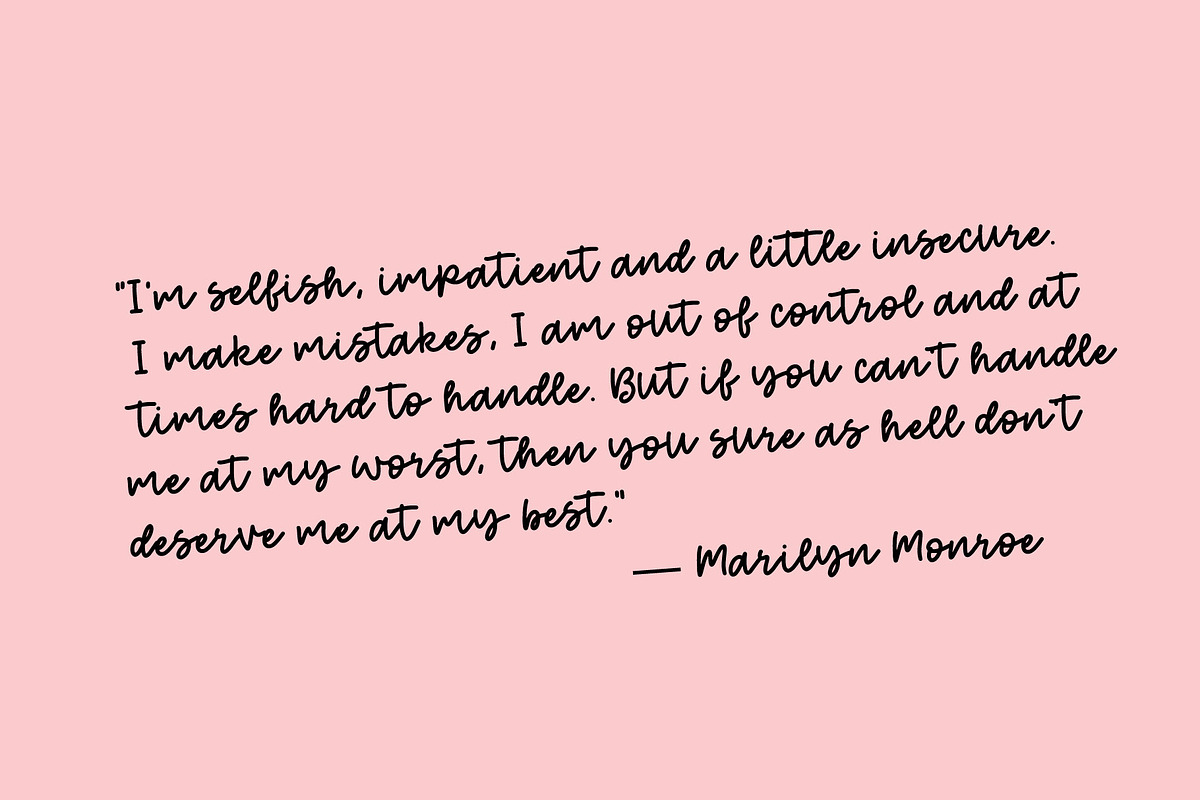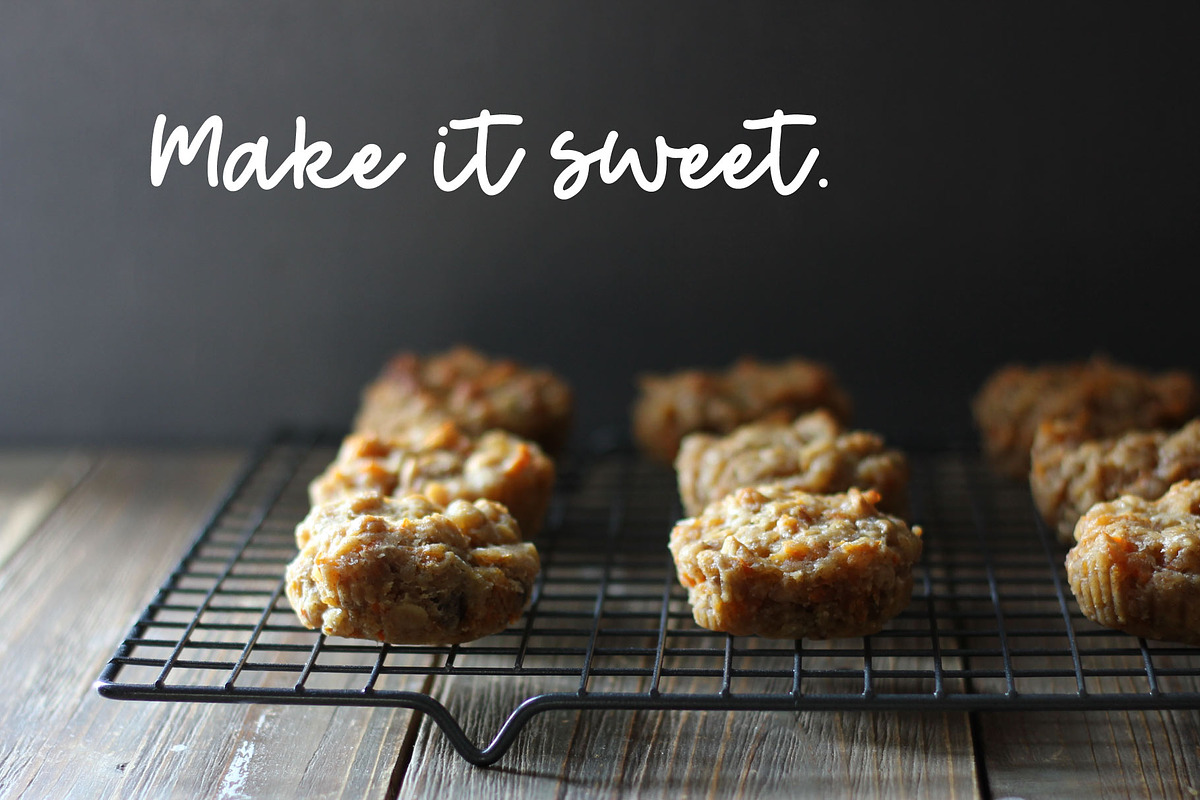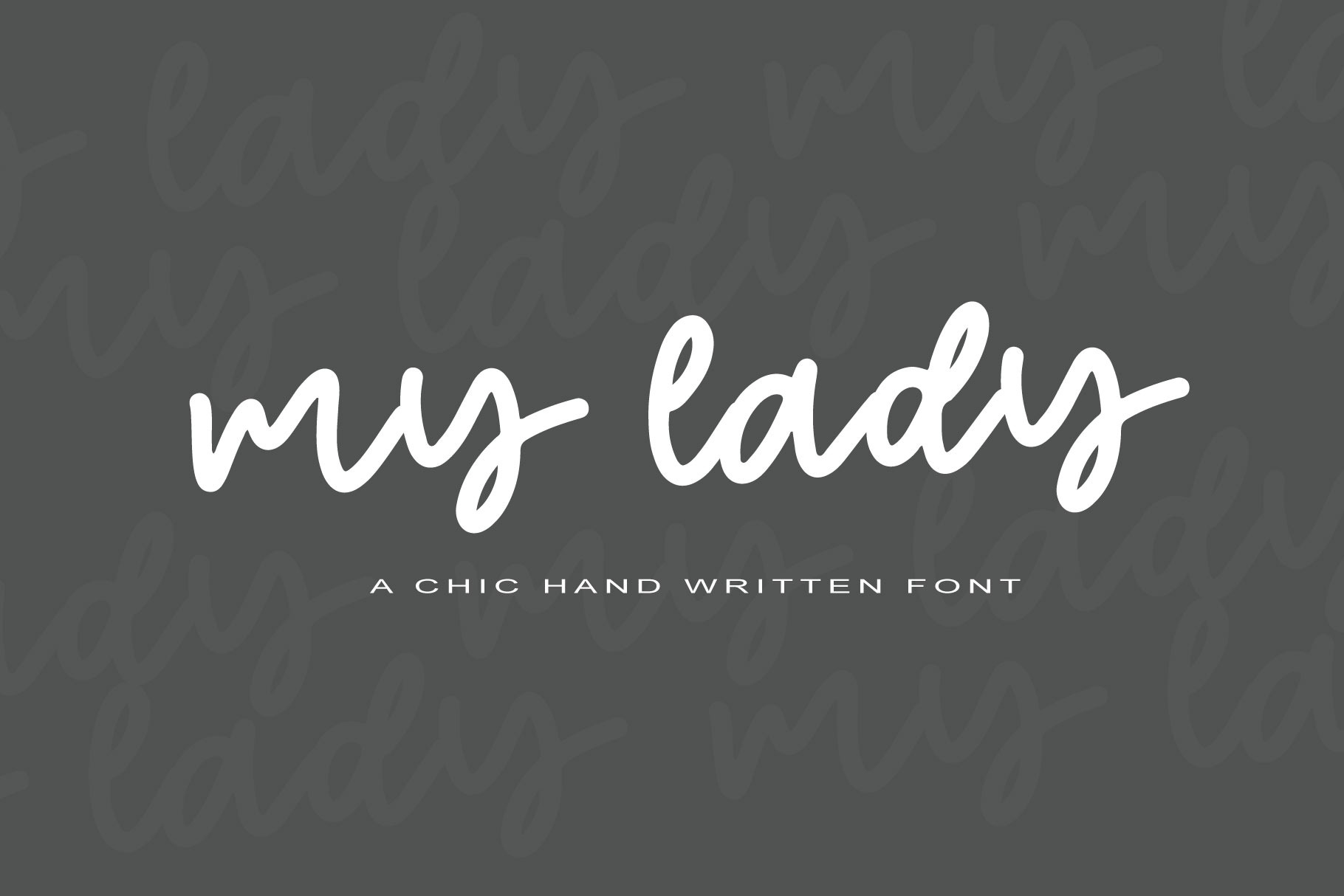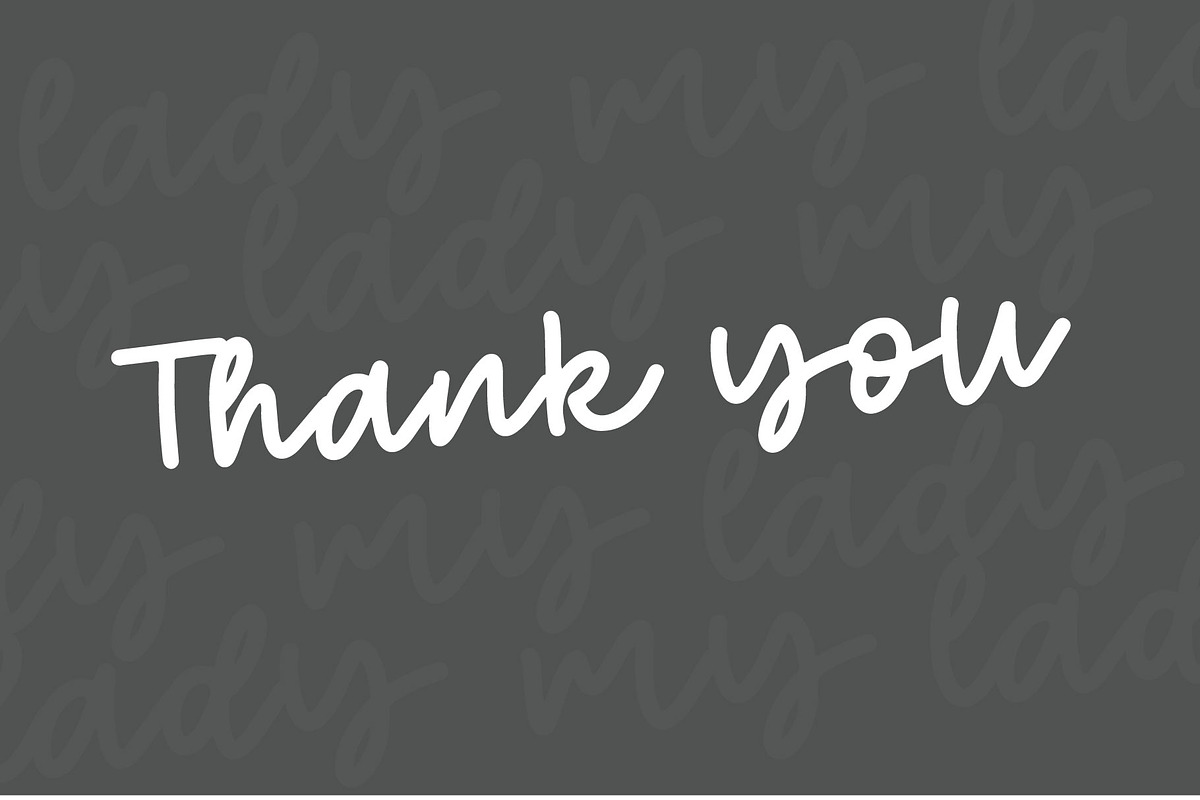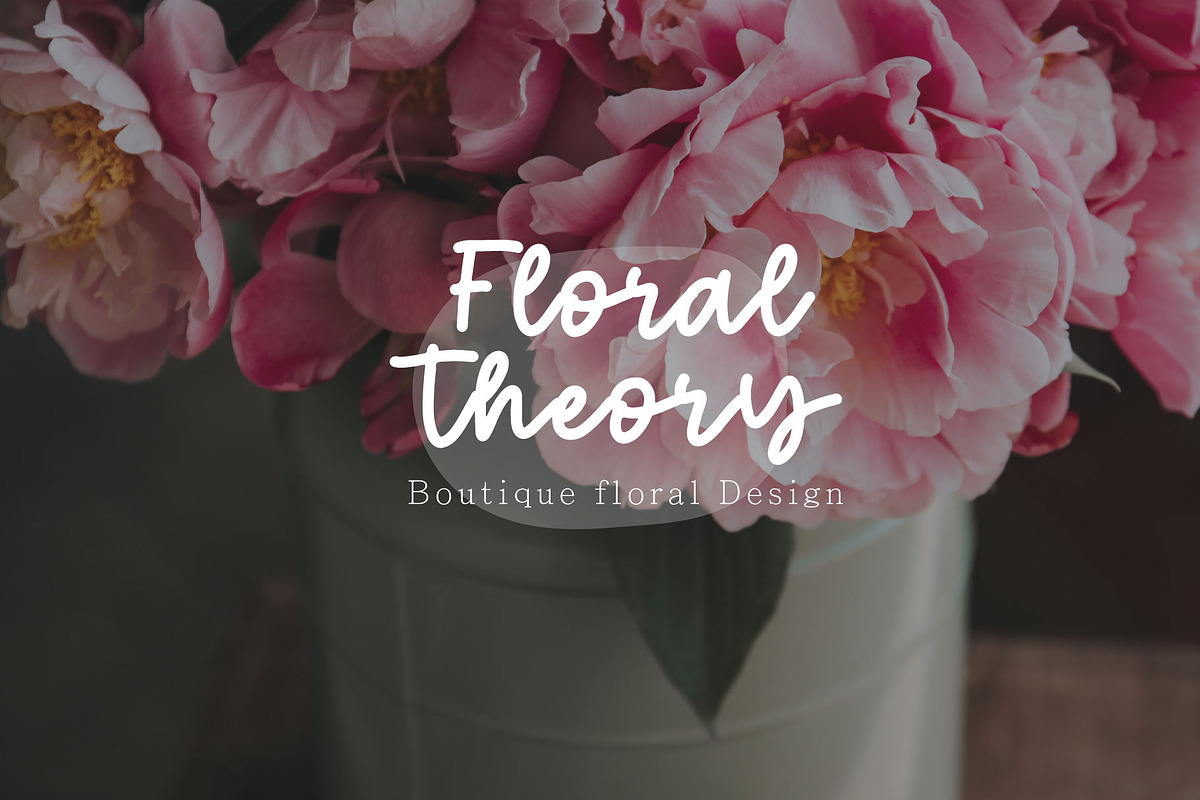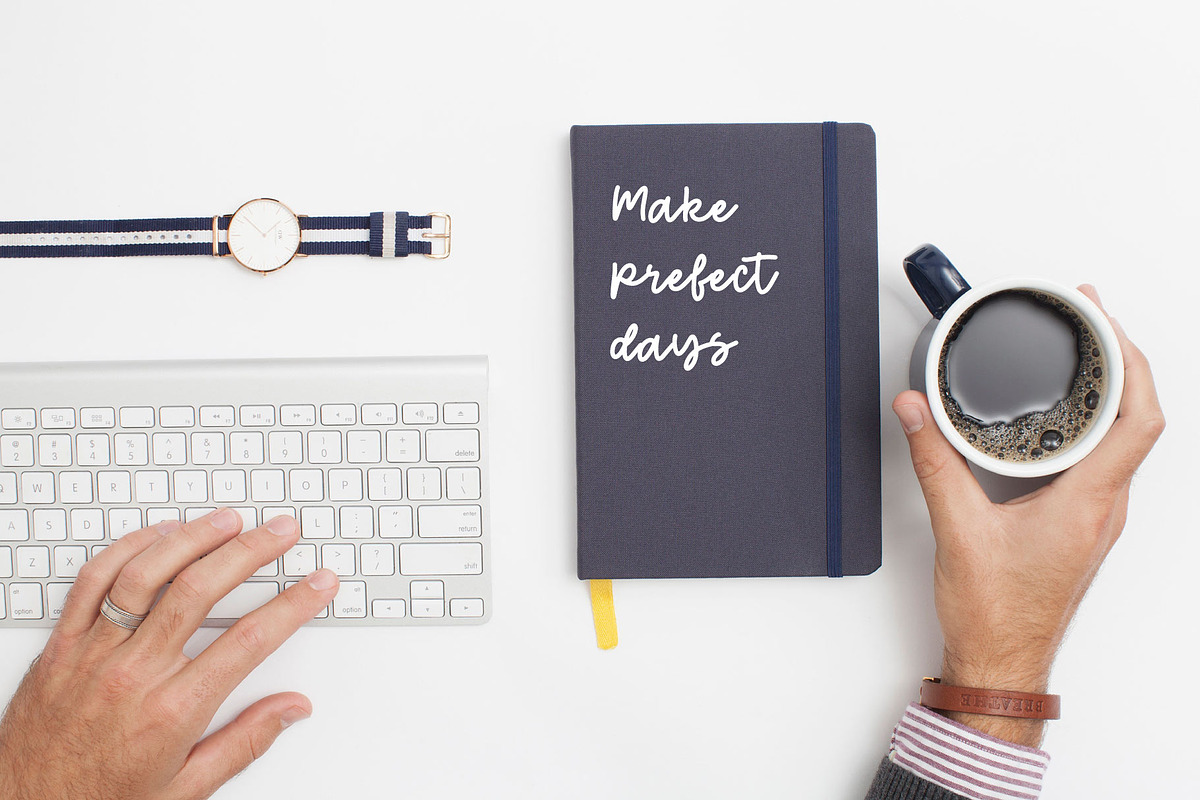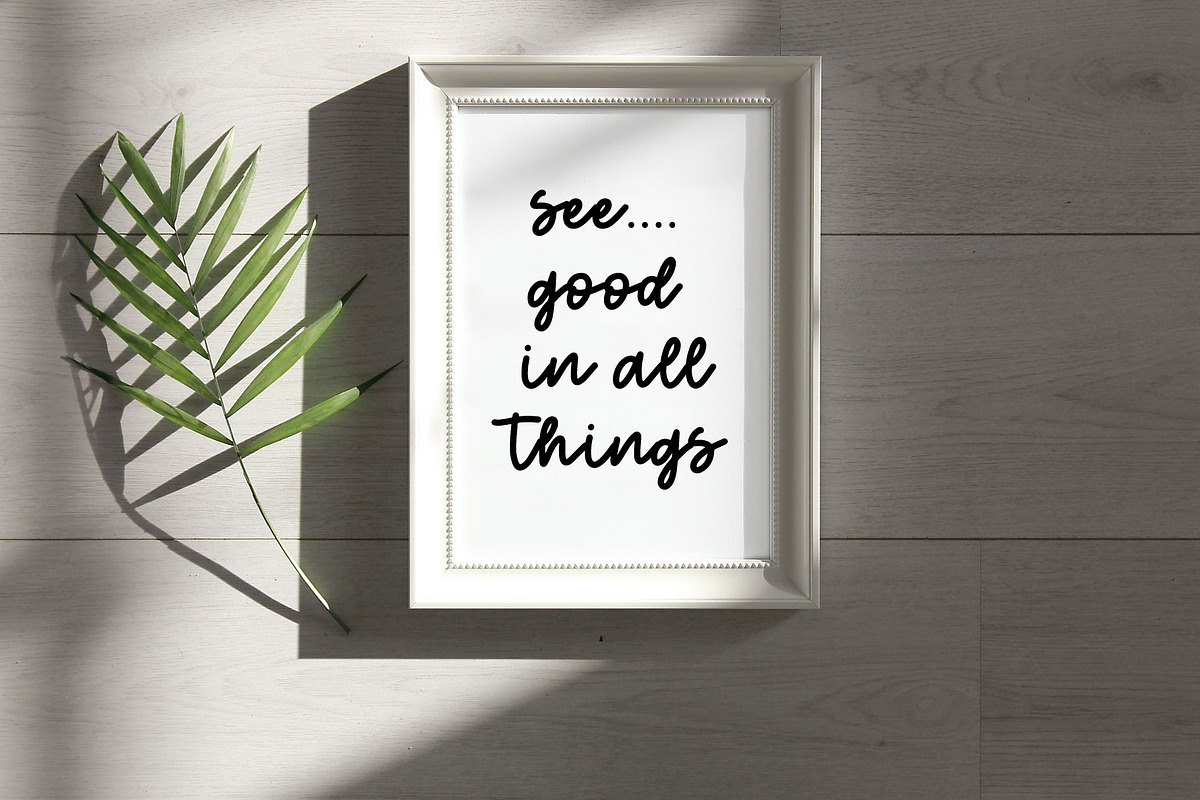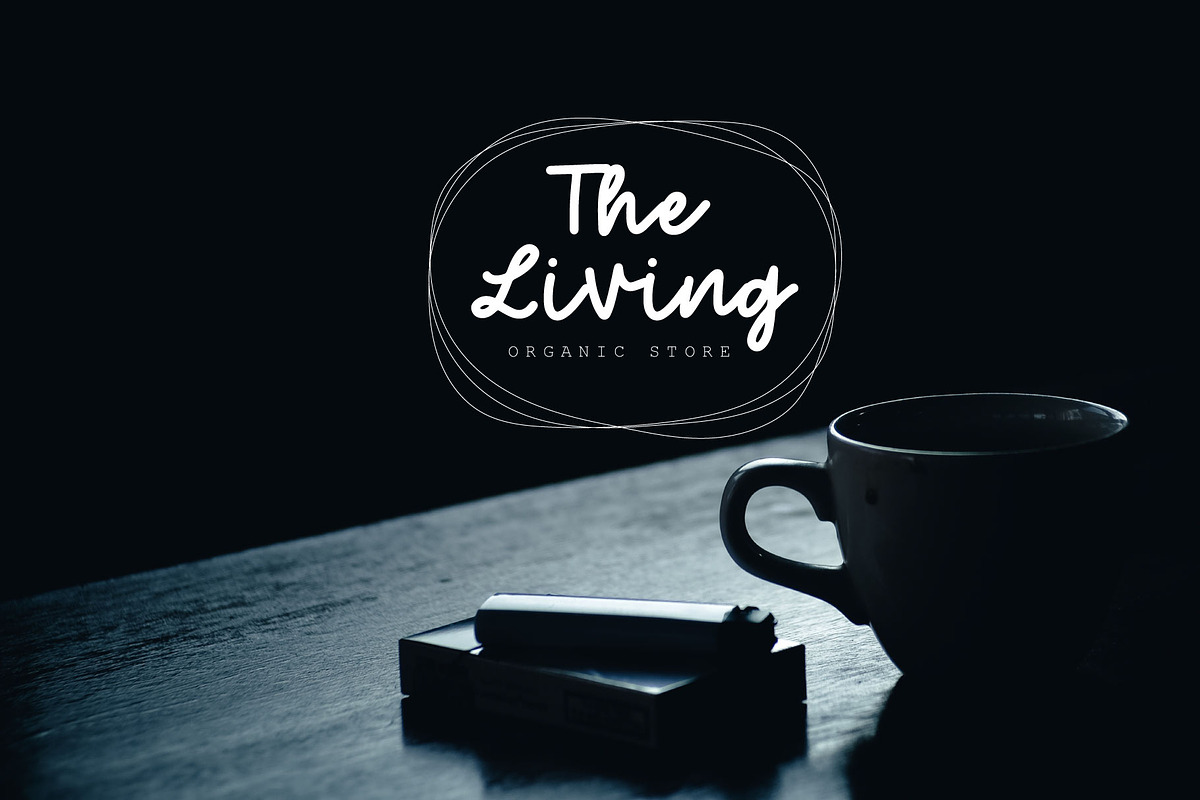
My Lady | Handwritten Font
My Lady A Chic and simple font perfect
This font looks absolutely handwritten and created by hand. This handwritten font is ideal for branding and decorates your any project.
Every single letter has been creative carefully and Perfectly Playful new font pair. This font is perfect for making your set of invitations, Brand, blog posts, DIY projects, greeting cards, labels, quotes, posters, wall art, branding, packaging, websites, photo & photography overlays, signs, window art, scrapbooking, tags and so much more!
Multilingual support for the following languages: Cornish, Danish, Dutch, English, Estonian, Faroese, Filipino, Finnish, French, Galician, German, Icelandic, Indonesian, Irish, Italian, Norwegian Bokmål, Norwegian Nynorsk, Portuguese, Spanish, Swahili, Swedish, Swiss German.